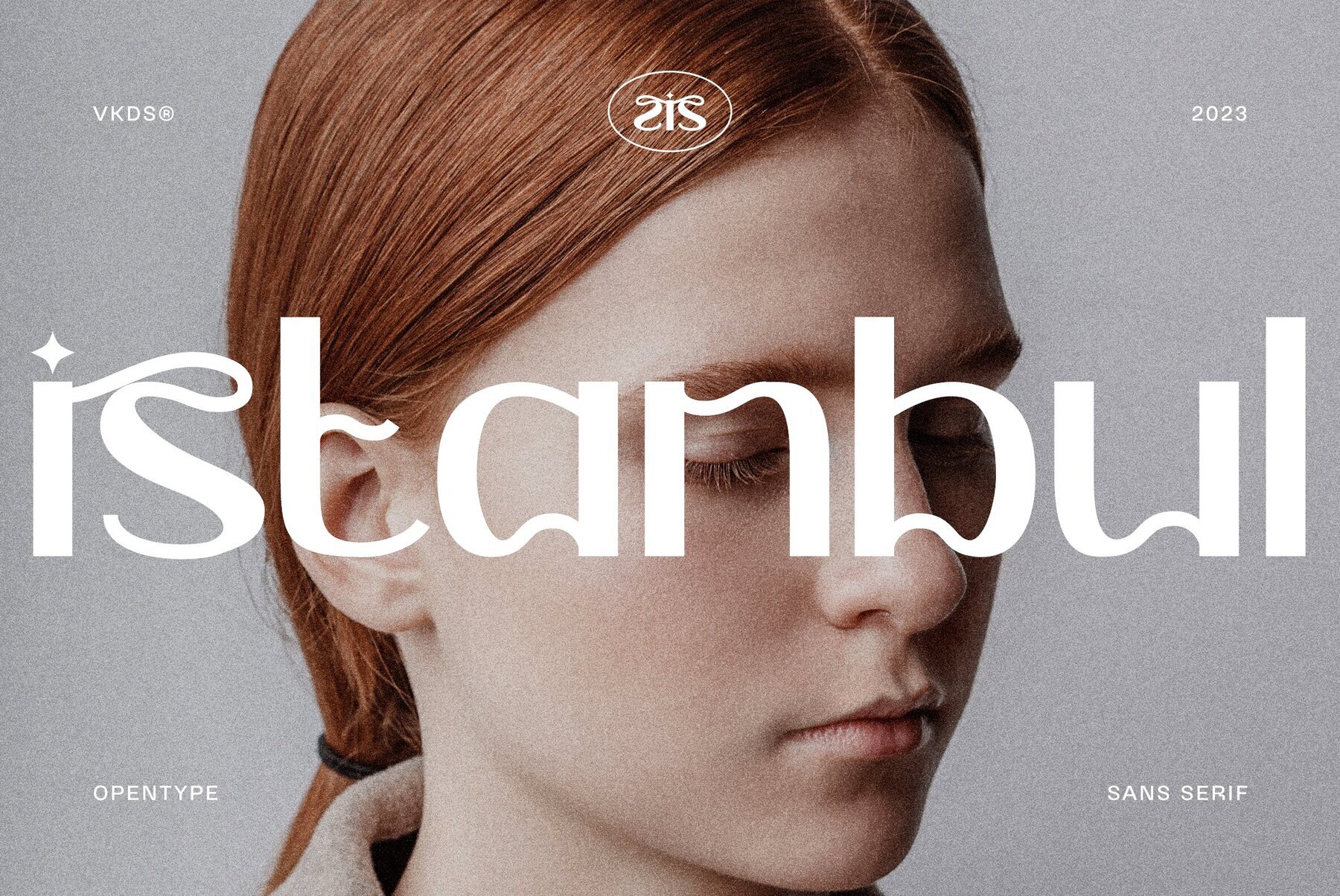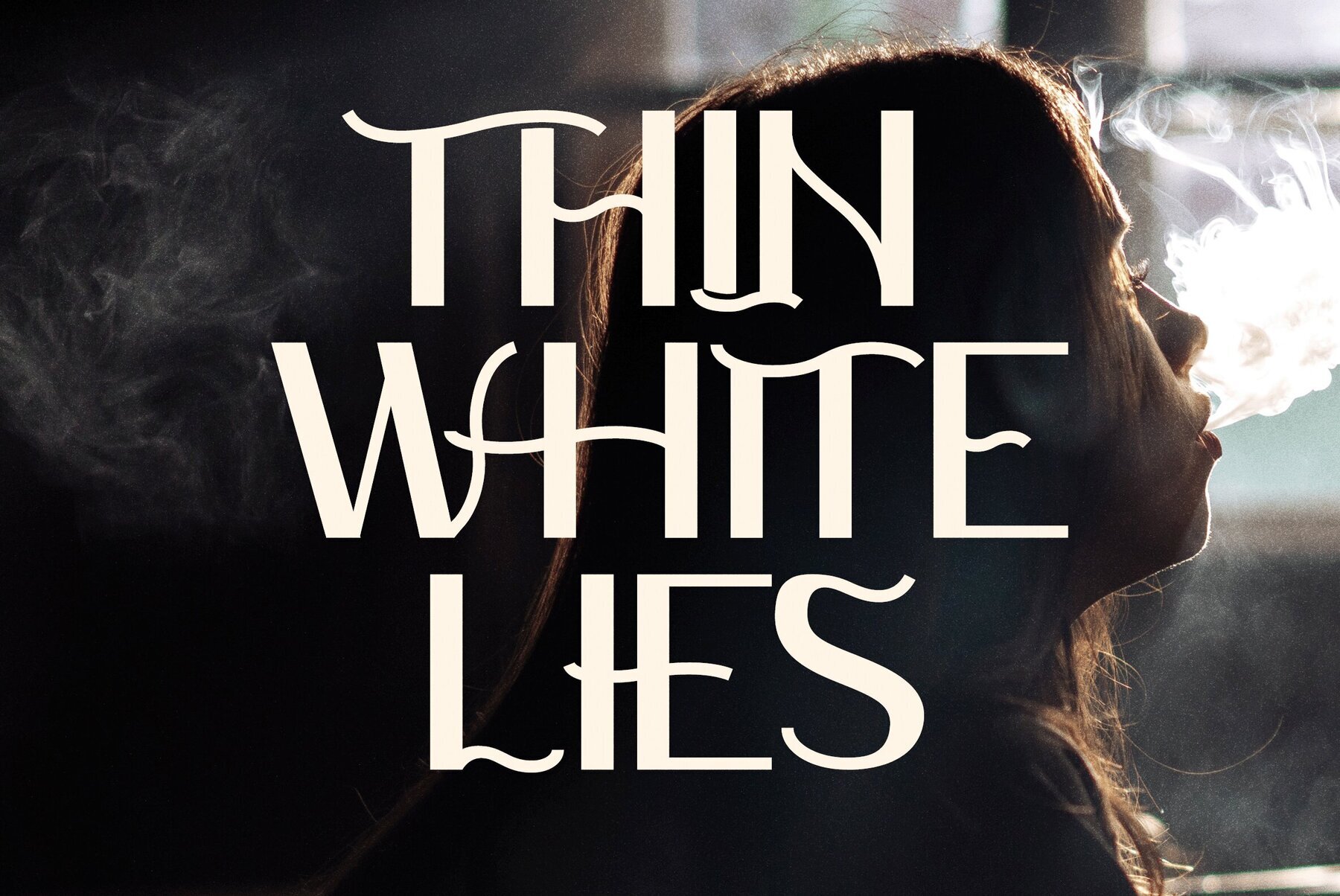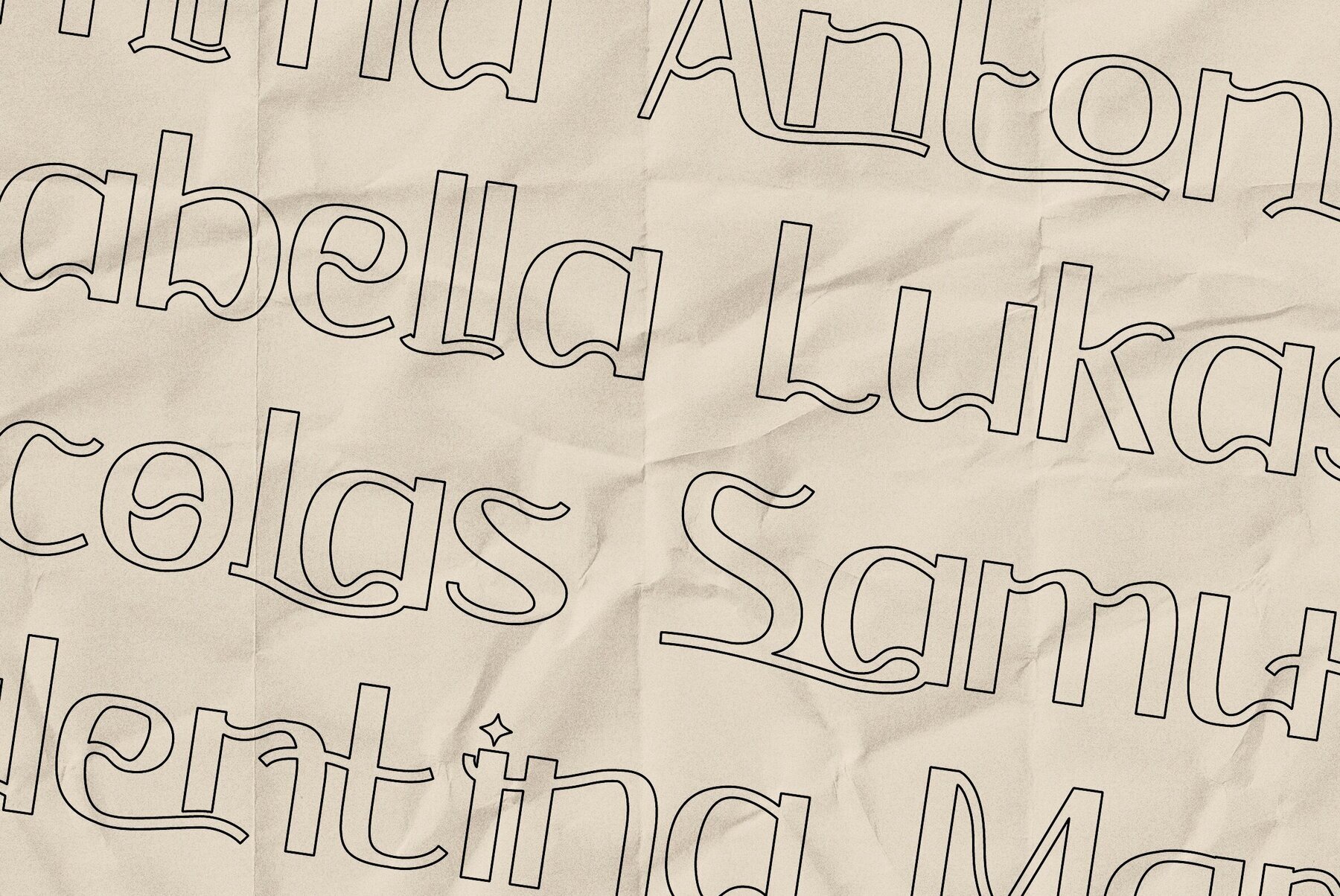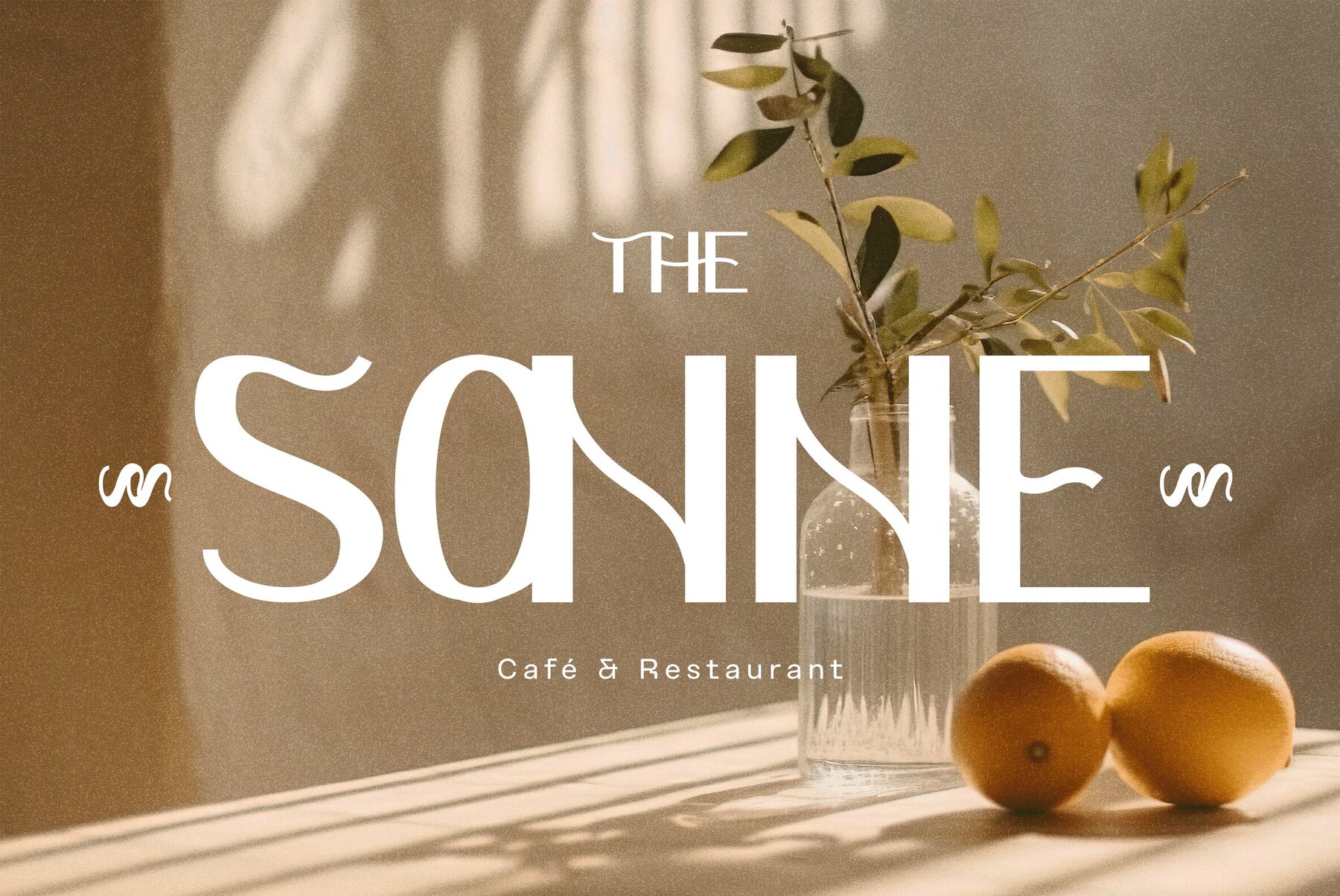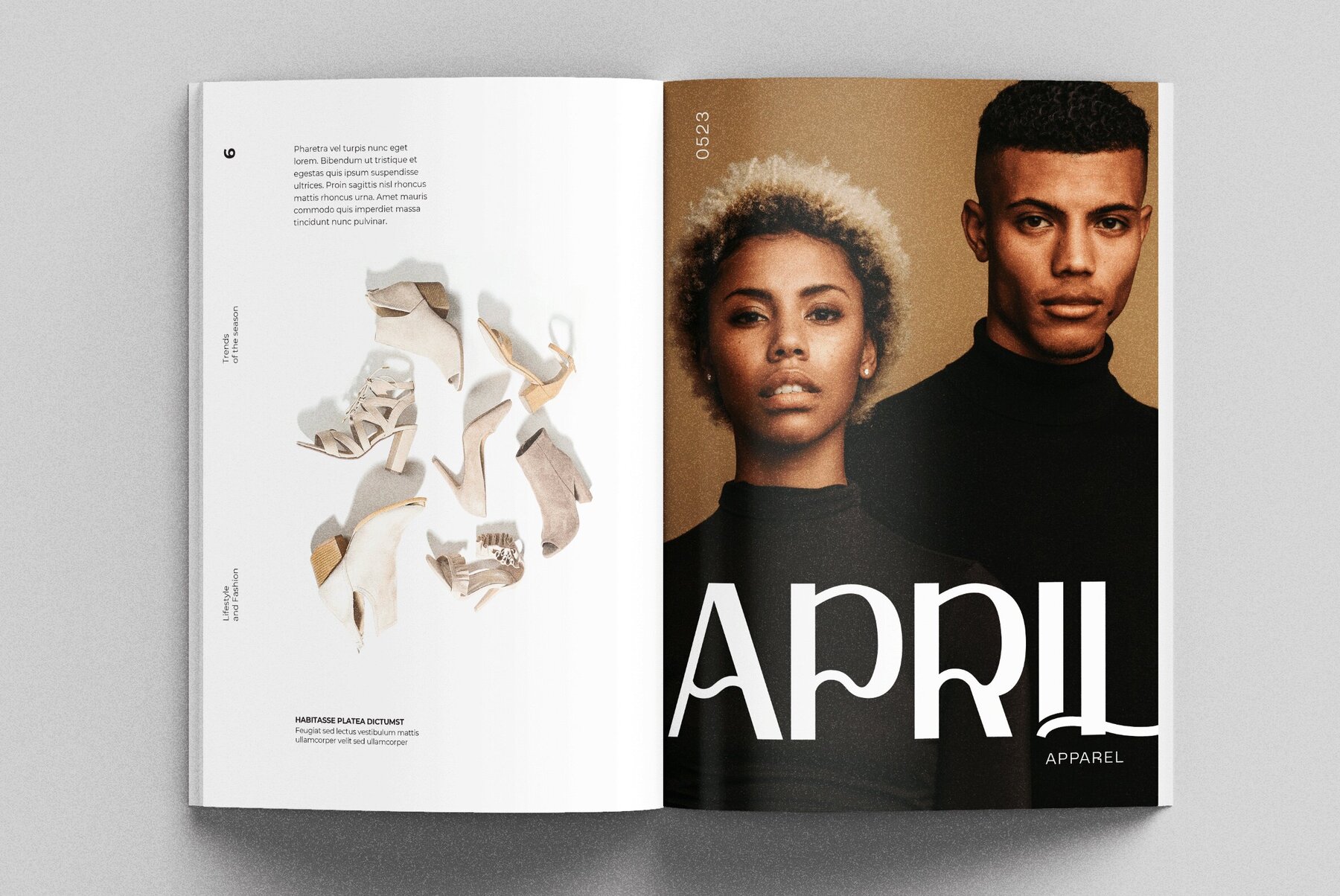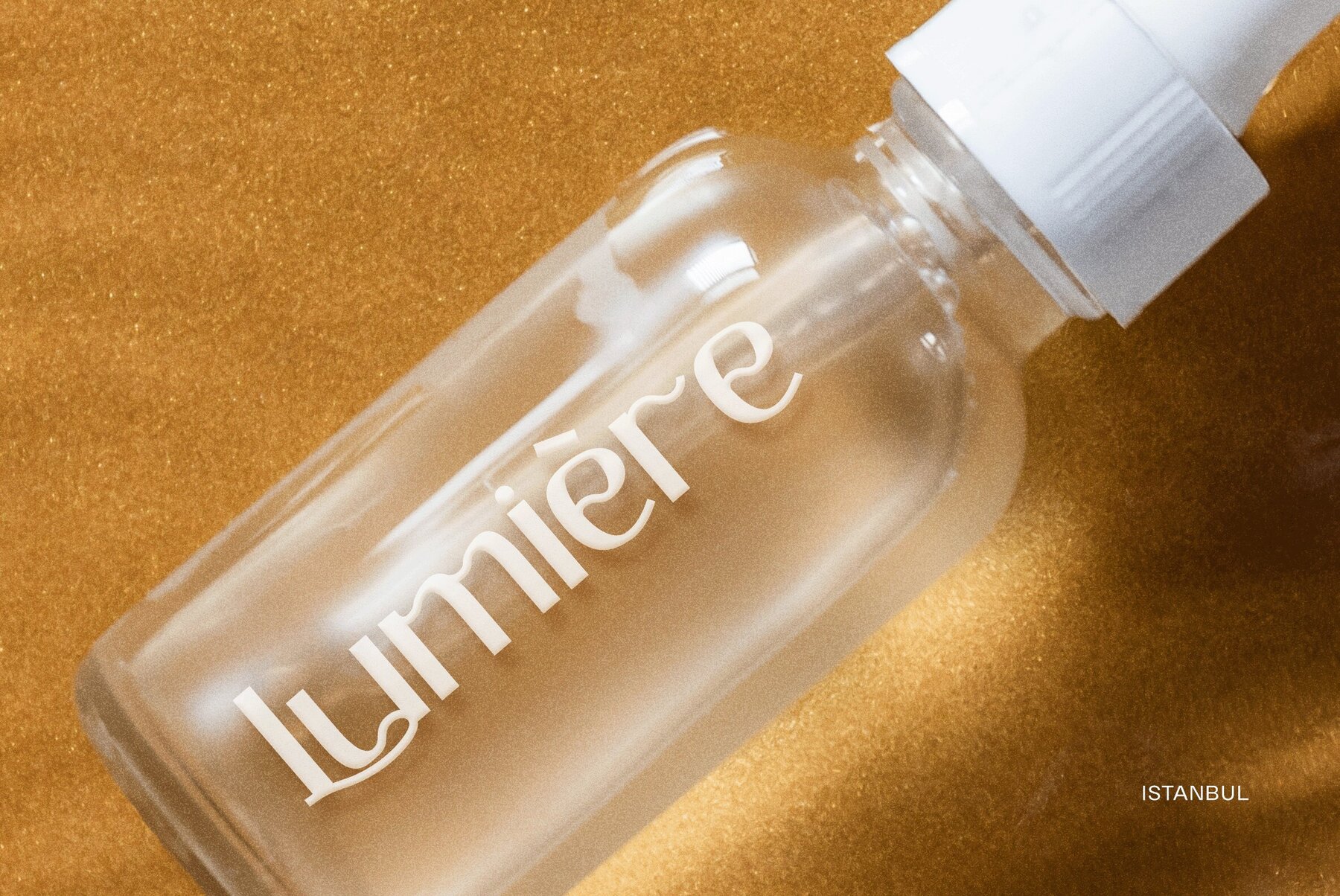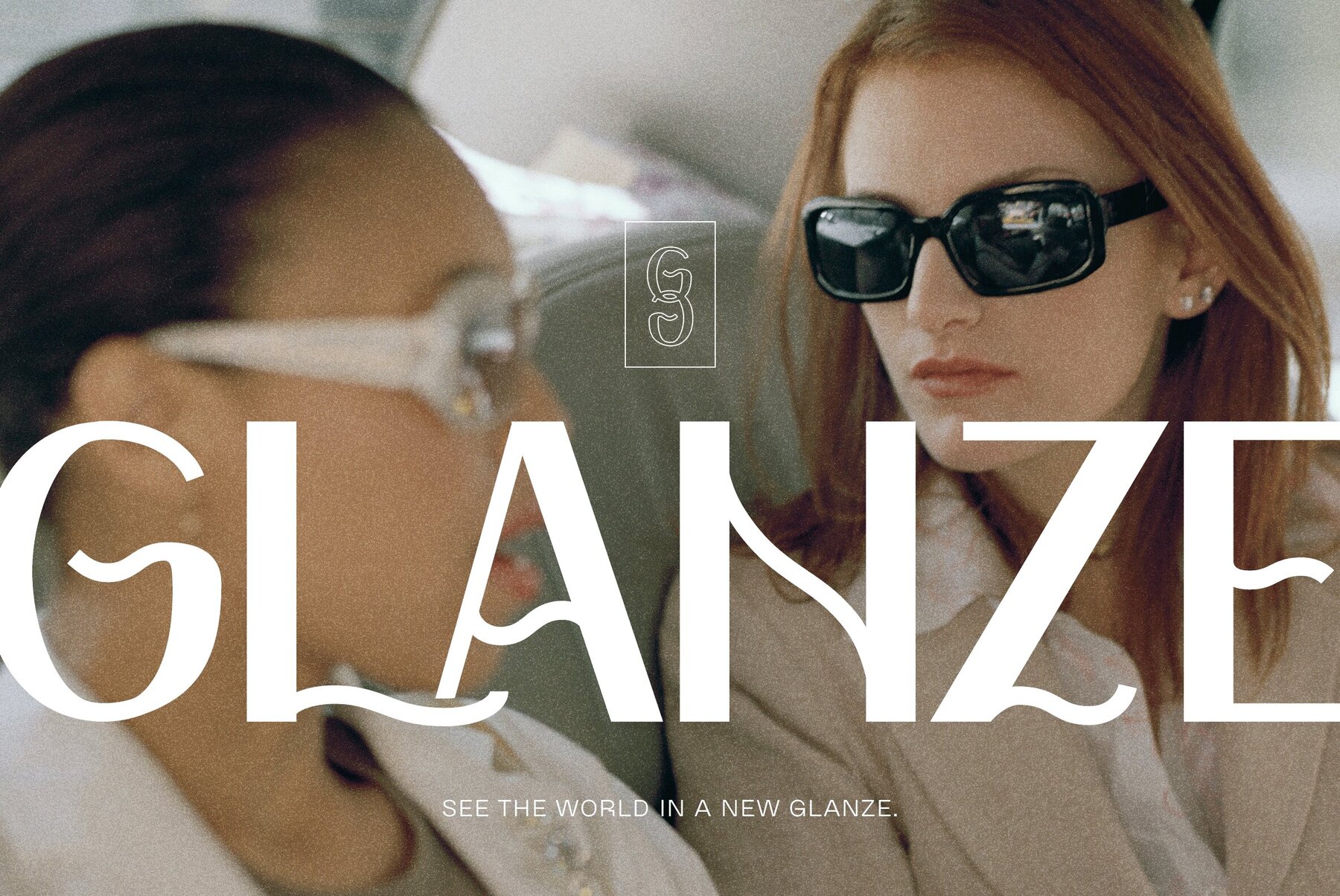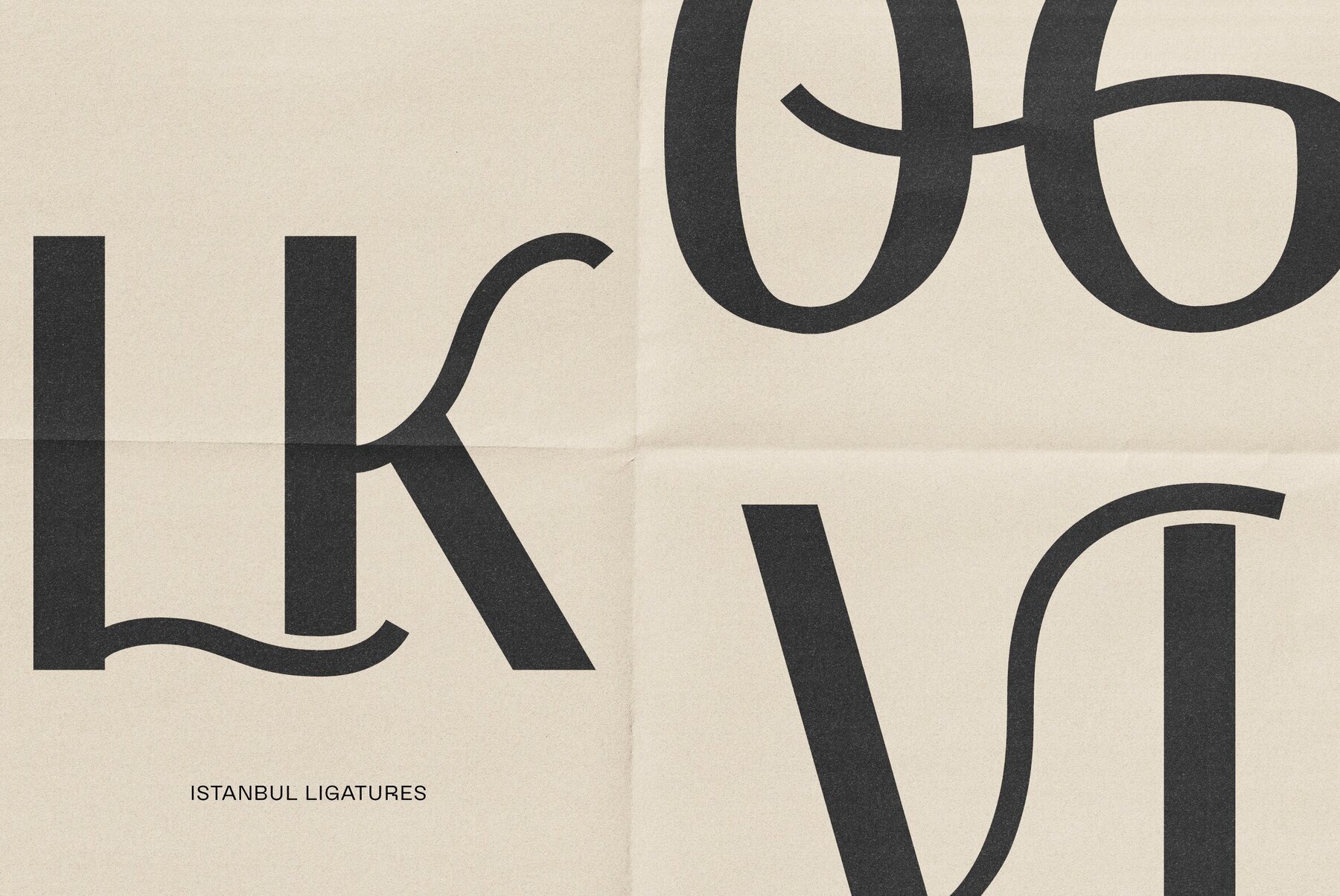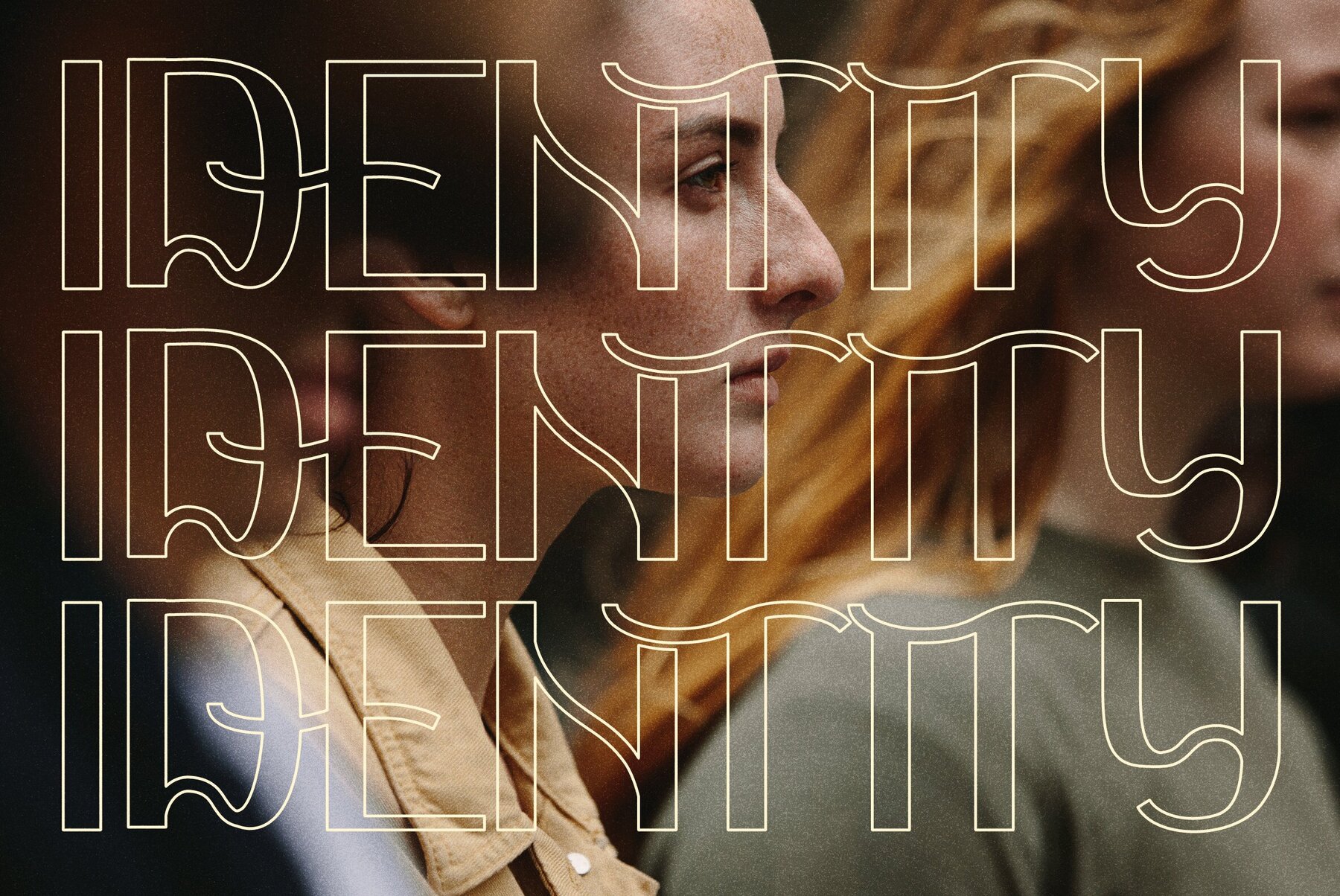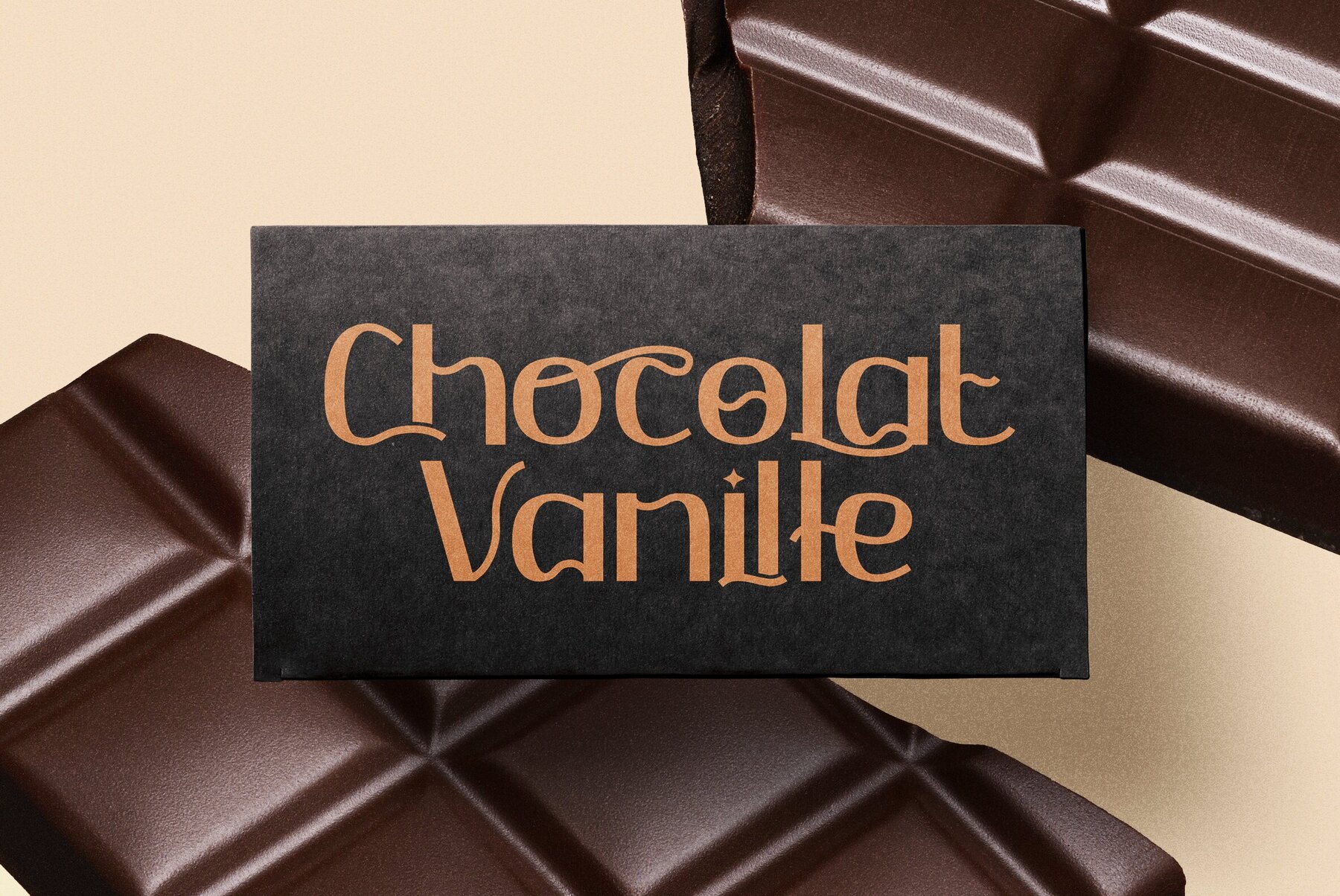
Istanbul Font
Istanbul Regular
Istanbul font, a creation by Victoria Kingsley Design Studio. With 504 glyphs, this decorative font offers extensive language support, making it a versatile choice for display type settings. Ideal for alternative fashion brands or cosmetic packaging, Istanbul Font adds a unqiue look and sophistication to your design projects. Additional products used for slideshow images: